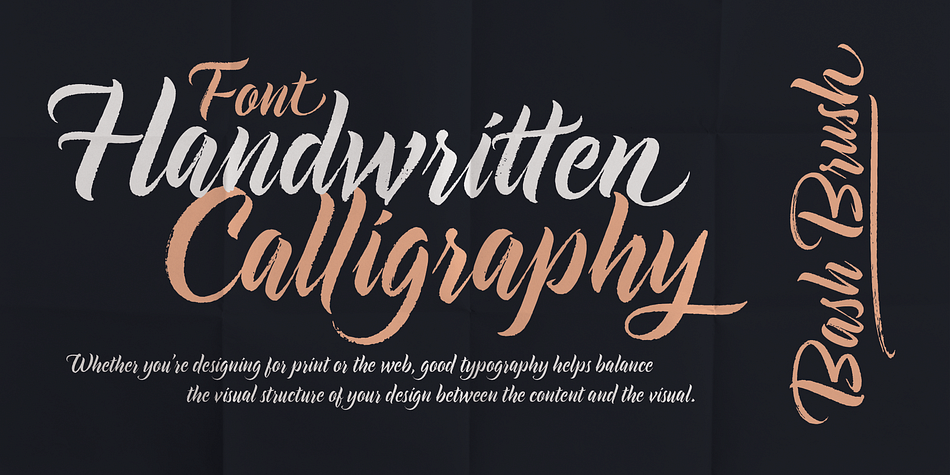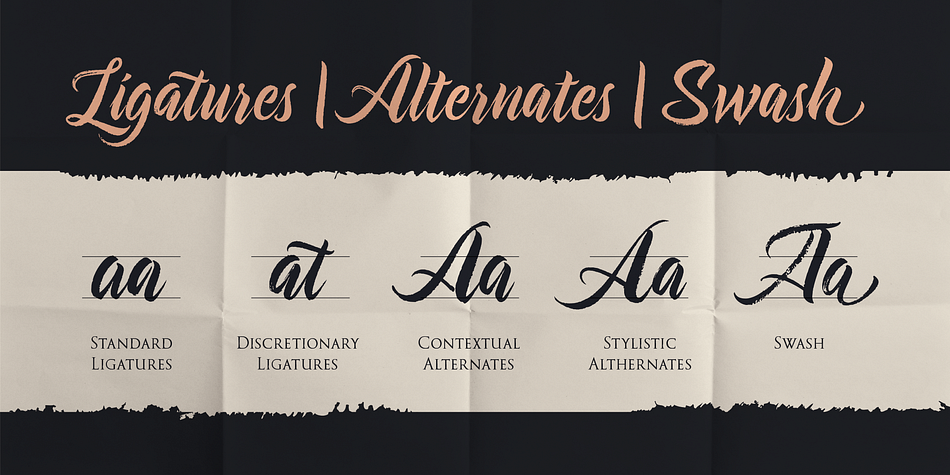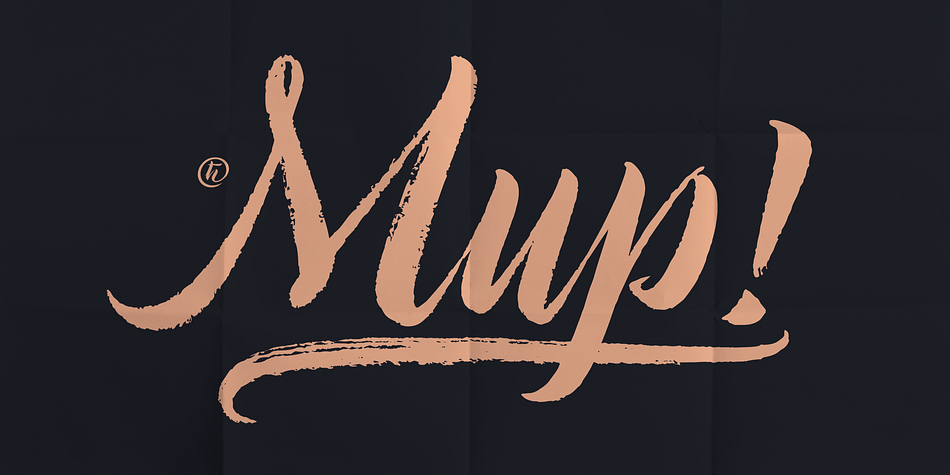
Bash Brush
Designed by Lazar Dimitrijević, Bash Brush is a brush script font family published by Posterizer KG.
Bash Brush is a calligraphy script, handwritten font, with a fresh, informal, and modern look. Because of the spontaneity there are plenty of Standard Ligatures, Discretionary Ligatures and Swashes to avoid frequent repetition of letters. If you find a single repeating glyphs, you can change that by toggling between Stylistic Alternates. There are ligatures created for Cyrillic too, 40 ornaments and artworks with dry-brush texture. Bash Brush is the perfect choice for all natural and authentically beautiful things.
Foundry Posterizer KG
Style Brush Script
Designer Lazar Dimitrijević